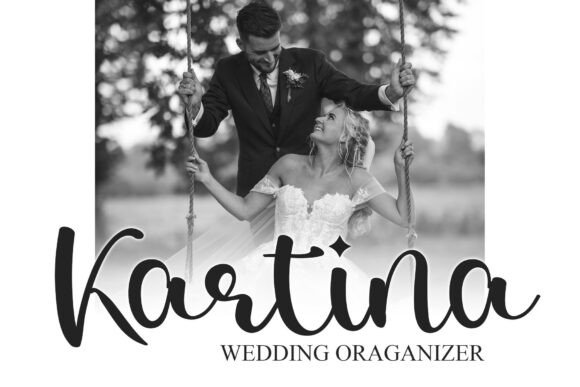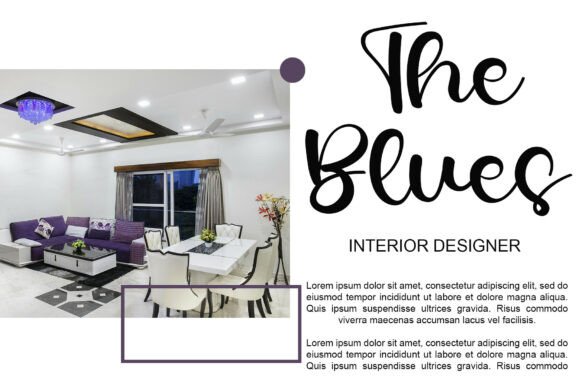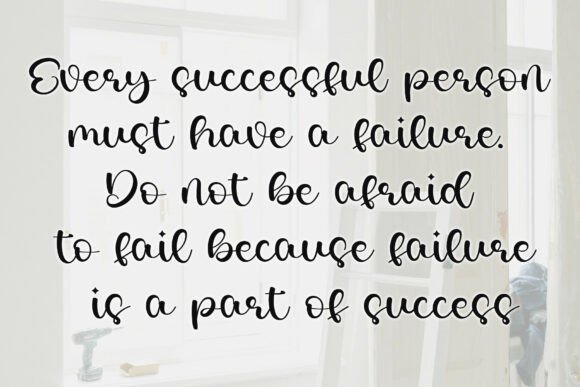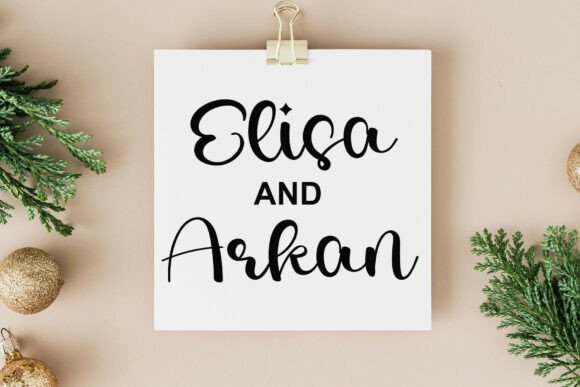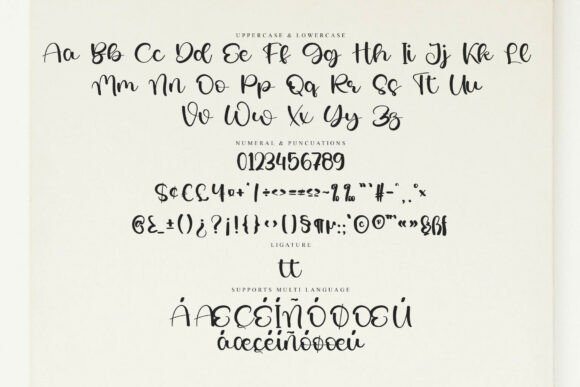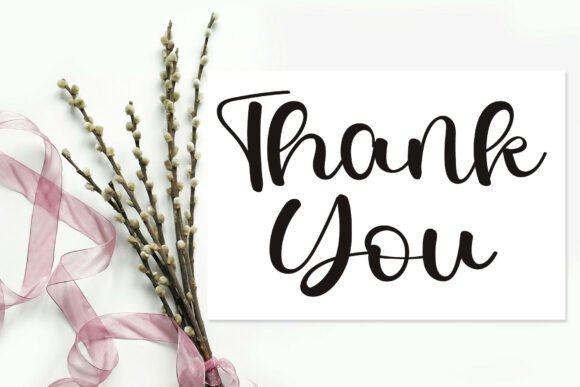
The Perfect Script: Introducing Authentic Font
As designers, we’ve all been there – staring at a blank page, trying to convey the perfect message through typography. But what happens when you need to add a touch of elegance and whimsy to your project? That’s where the Authentic Font comes in, a sweet and cursive handwritten font that will transport your designs to a world of romance and joy.
With its gentle curves and playful feel, the Authentic Font is perfect for branding, logo design, wedding invitations, and any project that requires a touch of sophistication and charm. Whether you’re a seasoned designer or just starting out, this versatile font is a valuable addition to your toolkit, allowing you to add a personal touch to your work and make it truly unforgettable.
- Size: The font family includes a range of weights, from Light to ExtraBold, allowing for flexibility in design and typography.
- Unique Characteristics: The font features a distinctive, hand-drawn aesthetic with subtle imperfections, giving it a unique and authentic feel.
I recently had the chance to work with the Authentic Font, and here’s my honest take.
- The Authentic Font has a unique, hand-crafted feel that adds a touch of warmth to any design.
- The font is highly customizable, with a wide range of weights and styles to choose from.
- The font is also very legible, making it a great choice for body text or headlines.
- The Authentic Font is highly versatile and works well in a variety of design contexts.
- The font may not be the best choice for titles or headings that require a lot of emphasis, as the design can be a bit too subtle.
- The font may not be the best choice for digital applications, as it can be a bit too ornate and may not display well on smaller screens.
The Authentic Font is a solid choice for designers looking to add a touch of personality to their work. While it may have some limitations, the unique feel and high level of customization make it a great option for designers who want to stand out from the crowd.
Authentic Font is ideal for use in:
Branding and marketing materials, such as logos and business cards.
Designing websites and digital products.
Creating presentations and reports.